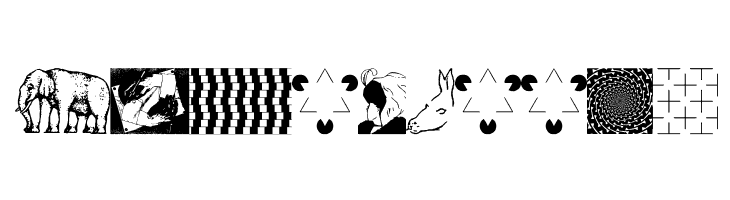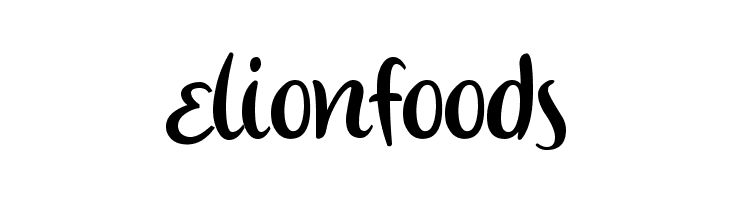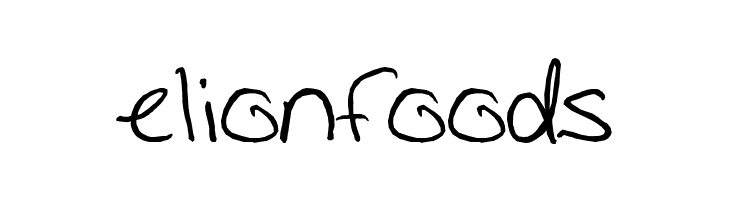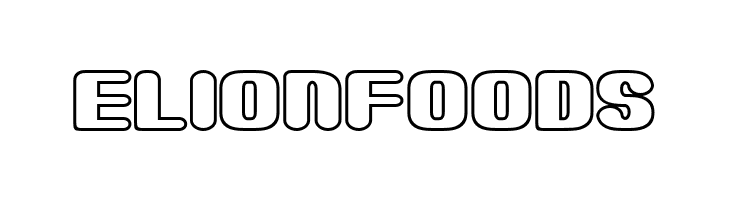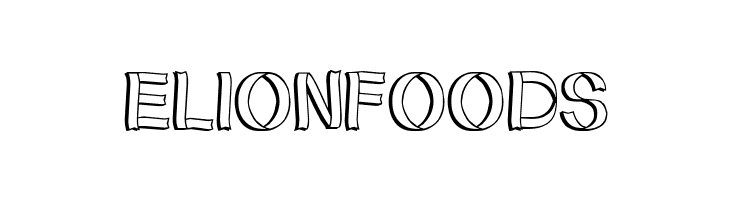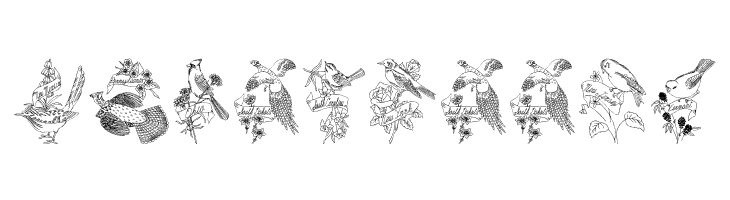
A decorative font made from iconic optical illusion illustrations.
A lively and expressive handwritten font with fluid, dynamic strokes.
A casual, handwritten font with bold, irregular strokes and a playful style.
A bold, playful outline font with rounded characters and consistent thickness.
A ribbon-inspired font with a shadow effect, offering a three-dimensional and elegant appearance.
Intricate, hand-drawn bird illustrations for each character.
A modern, ink-saving font with a perforated, dot-based design.
An elegant and fluid script font with interconnected, graceful strokes.
A decorative serif font with angel illustrations accompanying each character.
A playful font with bold letters and cartoon mouse illustrations.